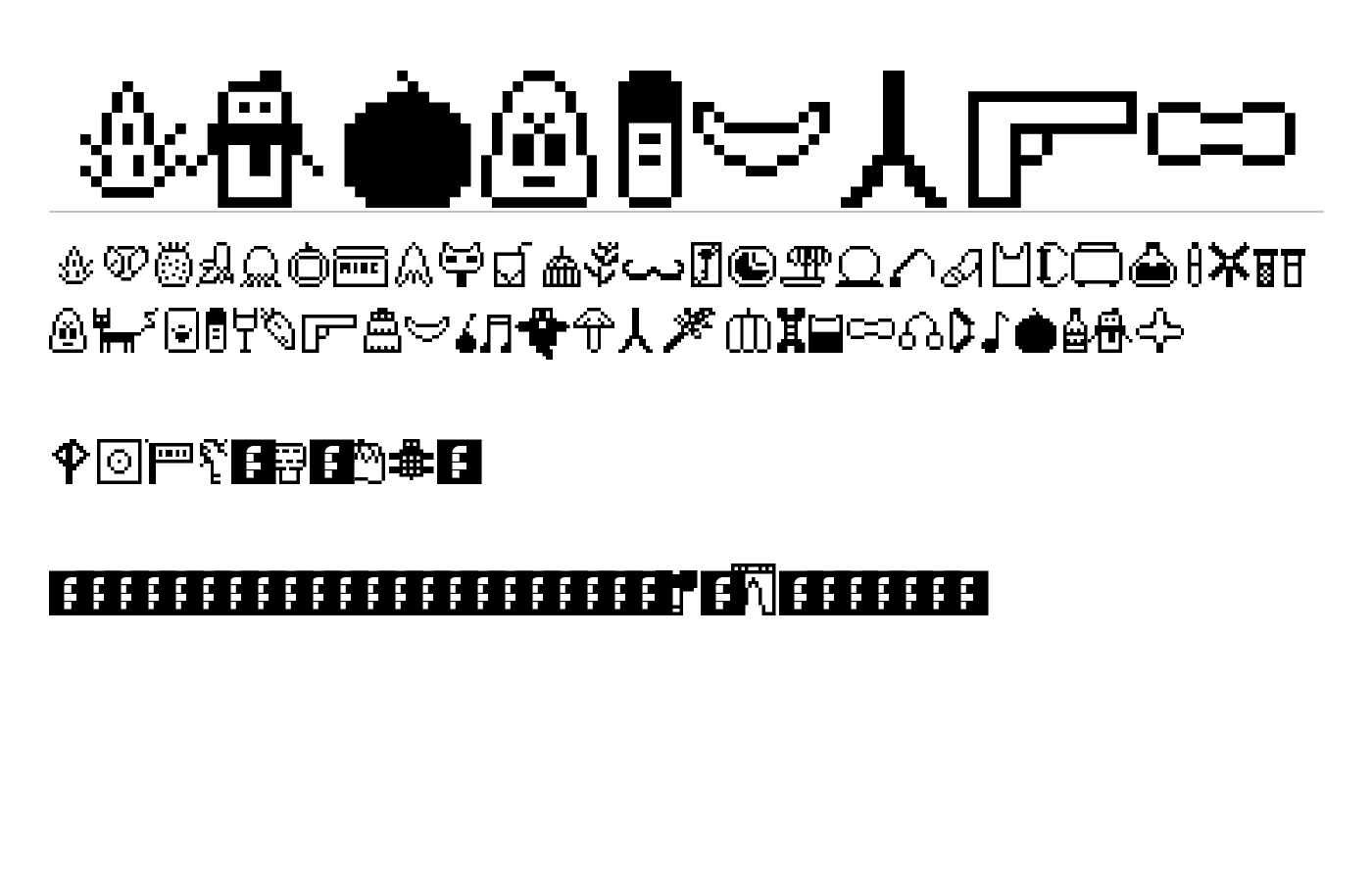
Aywadings is a pixel art dingbat font featuring a collection of fun, retro-style icons with a nostalgic 8-bit video game feel. Its blocky, low-resolution design makes it ideal for creative projects that need a touch of vintage tech charm or playful visual cues. This font works well for digital media, game graphics, or any design looking to capture a quirky, old-school aesthetic.
Aywadings Font
About Aywadings Font
| Font family | Aywadings Font |
| Designer | Carissa_ |